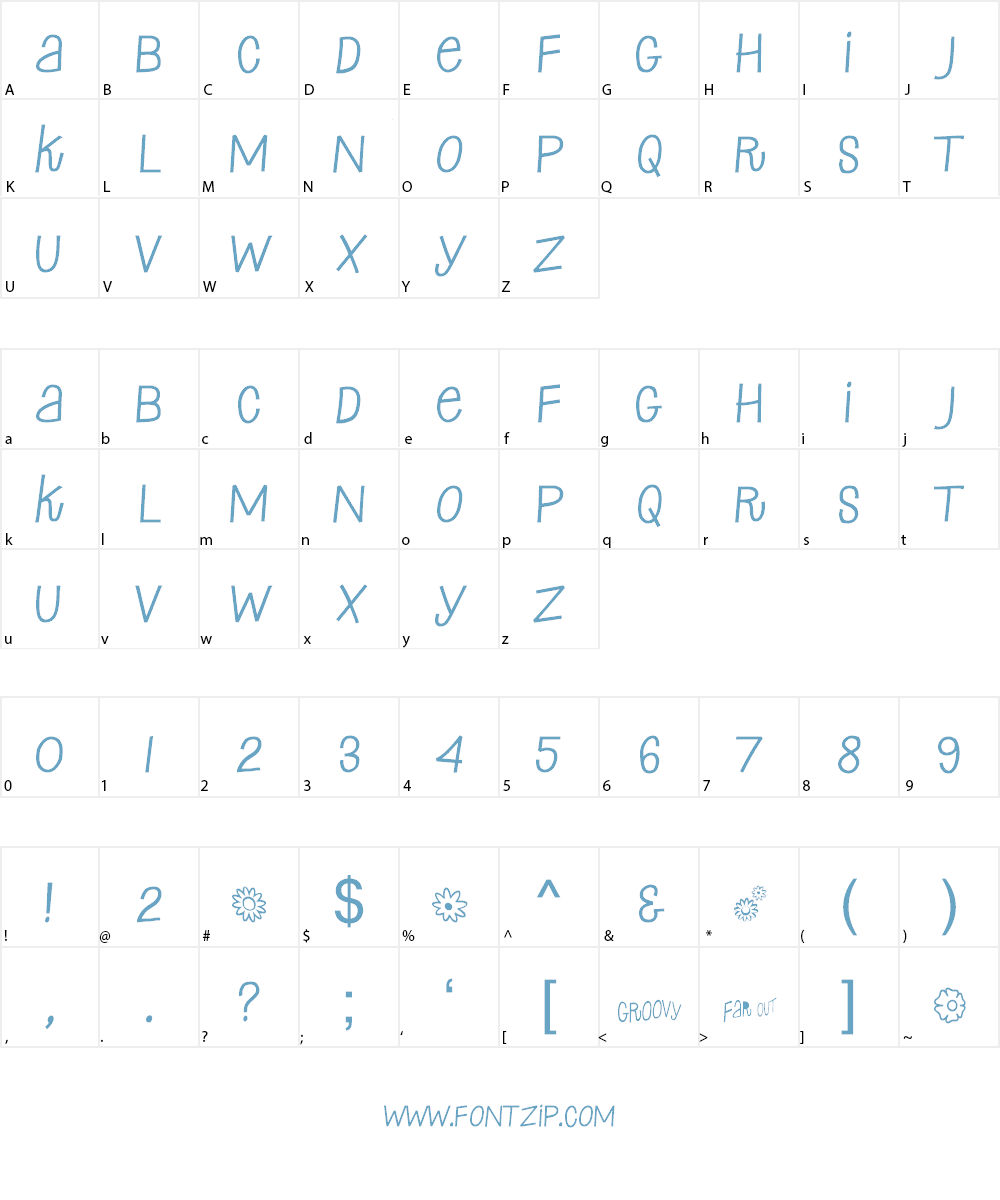
Sock it to me, baby! Far out! Groovy! SixtySeven is inspired by a particular typeface known variously as Daisies, Floralies, Flower Child, etc., that's big, bold, and beautiful, with lots of little daisies and flowers, especially in the counters of most characters. I set out to approximate a thin, much less flamboyant derivation. SixtySeven sets well at small or large point sizes. There isn't any difference between upper- and lower-case characters, and there's only minimal punctuation. As an added bonus, there's a full number set and I've included some groovy dingbats. Yep, this font is worth every penny you'll pay for it.